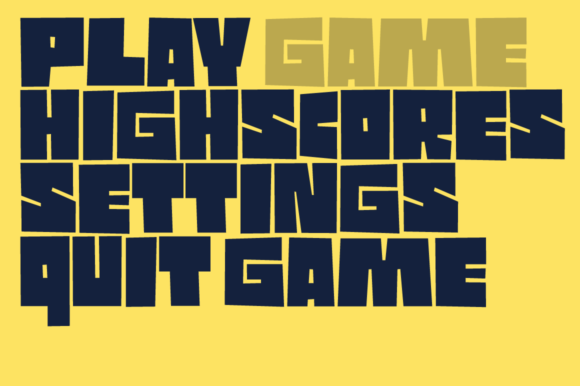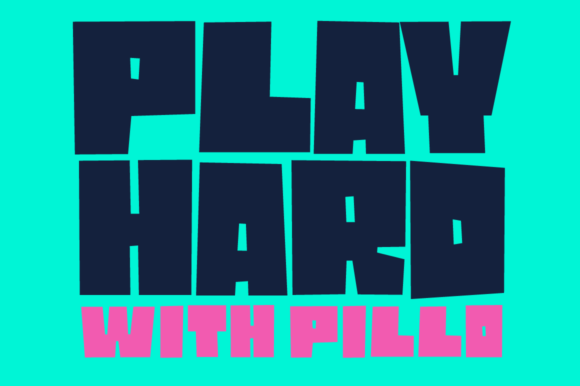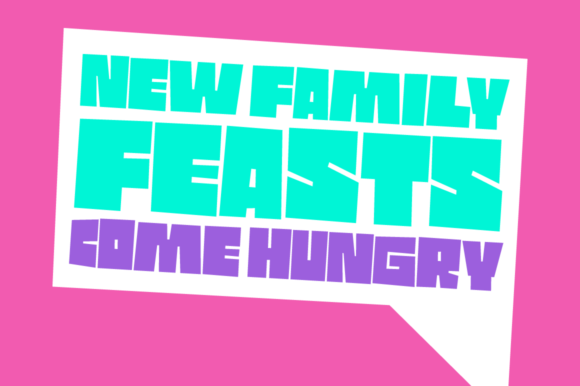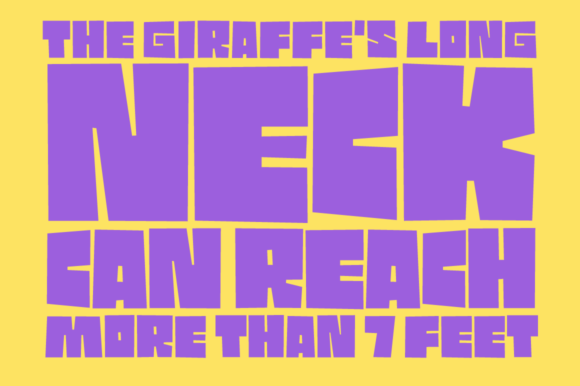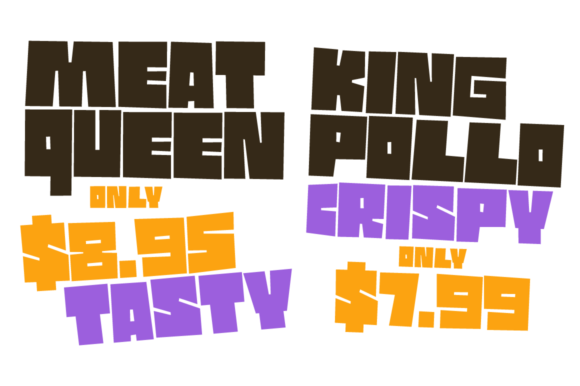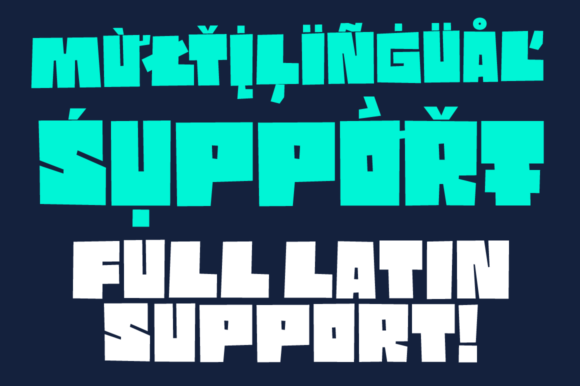
Introduction to Pillo Pillo Font
Have you ever been working on a creative project and struggled to find the perfect font to bring your vision to life? You’ve tried countless options, but nothing seems quite right. That’s where the Pillo Pillo Font comes in – a bold, chunky lettered display font that’s sure to add some excitement to your design.
Imagine you’re designing a logo for a new children’s book series, and you want the title to jump off the page. You add the Pillo Pillo Font, and suddenly the words seem to dance across the transparent background. It’s moments like these that make design so rewarding.
Key Features of Pillo Pillo Font
- High-quality design for creative projects, ideal for use in digital art, graphic design, and web development.
- Comes with a transparent background, making it easy to use in various design applications.
- Features a unique and playful design style, perfect for adding a creative touch to your projects.
Honest Review: Pillo Pillo Font
I recently had the chance to work with the Pillo Pillo Font on a creative project, and I must say it’s a fantastic addition to any design resource collection. The font’s high quality is immediately noticeable, with crisp lines and a beautiful texture that adds depth to any text.
- ✨ The Pillo Pillo Font is incredibly versatile, suitable for a wide range of creative projects, from logos to posters.
- ✨ The transparent background makes it easy to layer the font over images or other design elements.
- Limitations:
- ⚠️ The font may not be suitable for use in small text sizes, as the texture can become overwhelming.
Overall, I’m really impressed with the Pillo Pillo Font. It’s a great addition to any design resource collection, and I would highly recommend it to designers looking for a high-quality, versatile font.
Tips for Getting the Most Out of Pillo Pillo Font
To get the most out of Pillo Pillo Font, experiment with different font styles, sizes, and colors. You can also combine Pillo Pillo Font with other design elements to create a unique and eye-catching design.
Pillo Pillo Font is suitable for a variety of design projects, including logos, business cards, brochures, and social media graphics. Its high-quality design and transparent background make it an ideal choice for creative projects.